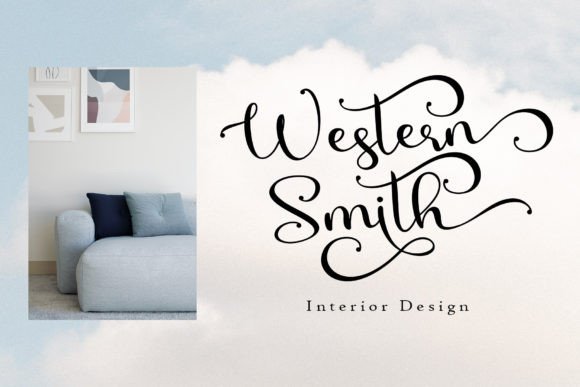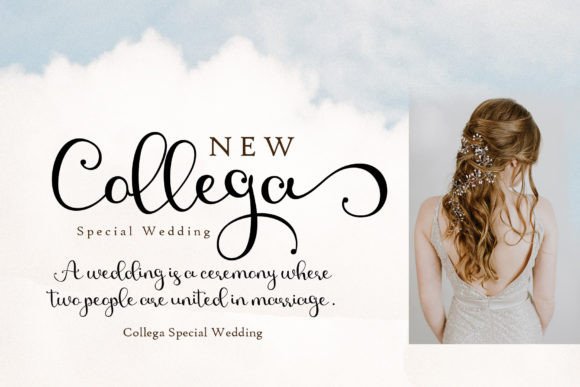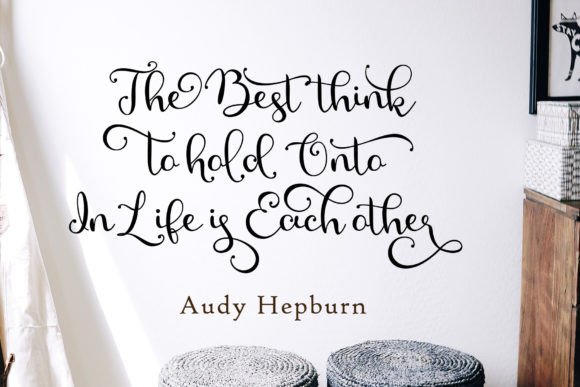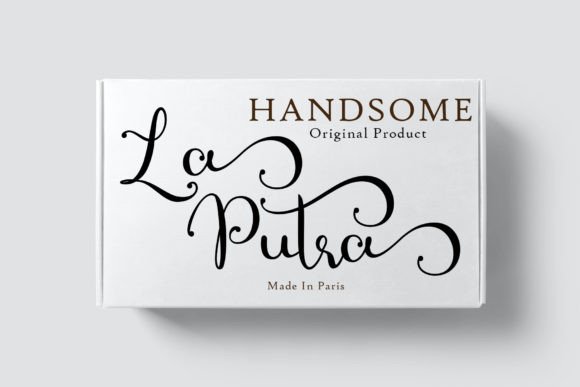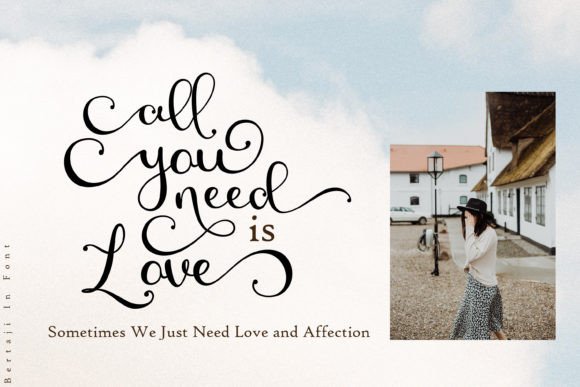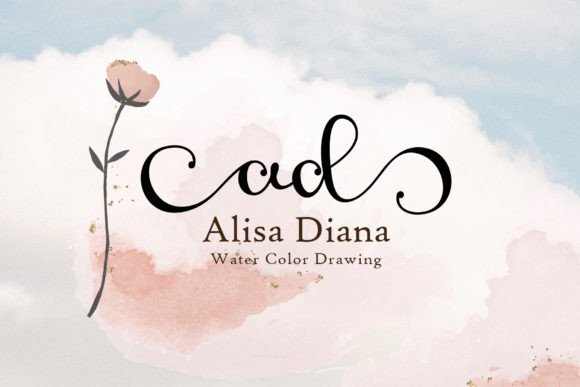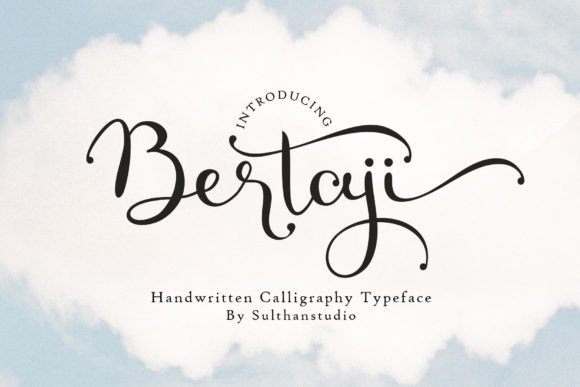
The Sweet Spot: Discovering the Charm of Bertaji Font
I’ll never forget the time I was working on a wedding invitation project, and my client asked for a font that was “whimsical, yet elegant.” I scoured the internet, trying out font after font, but nothing seemed quite right. That was until I stumbled upon Bertaji Font. With its eccentric style and soft touch, it instantly captured the essence of what my client was looking for. In this article, I’ll share my journey with Bertaji Font, its features, and how you can make the most of it in your designs.
An Honest Review of Bertaji Font
- ✨ The unique, handwritten style that adds a touch of personality to any design
- ✅ PUA encoded, making it easy to access all the amazing glyphs and ligatures
- 🎉 Perfect for a variety of projects, including logos, wedding invitations, headings, t-shirts, and more
- 💕 The soft, charming touch that makes it hard to resist
While Bertaji Font is an amazing addition to any design project, there are a few things to keep in mind:
- ⚠️ As with any font, it’s essential to test it in different sizes and contexts to ensure it works well for your specific project
- 🤔 Some users may find the font a bit too ornate or playful for certain applications
The Story Behind Bertaji Font
Bertaji Font was designed with the intention of creating a unique, charming font that would add a touch of personality to any design project. The designer aimed to create a font that was both elegant and playful, making it perfect for a wide range of applications. While the exact story behind the font’s creation is unclear, it’s evident that the designer put a lot of thought into crafting a font that would bring joy and whimsy to designers and their clients.
Q: Is Bertaji Font suitable for body text?
A: While Bertaji Font is a beautiful addition to any design project, it’s best suited for headings, titles, and short paragraphs. For body text, a clearer font may be more suitable.